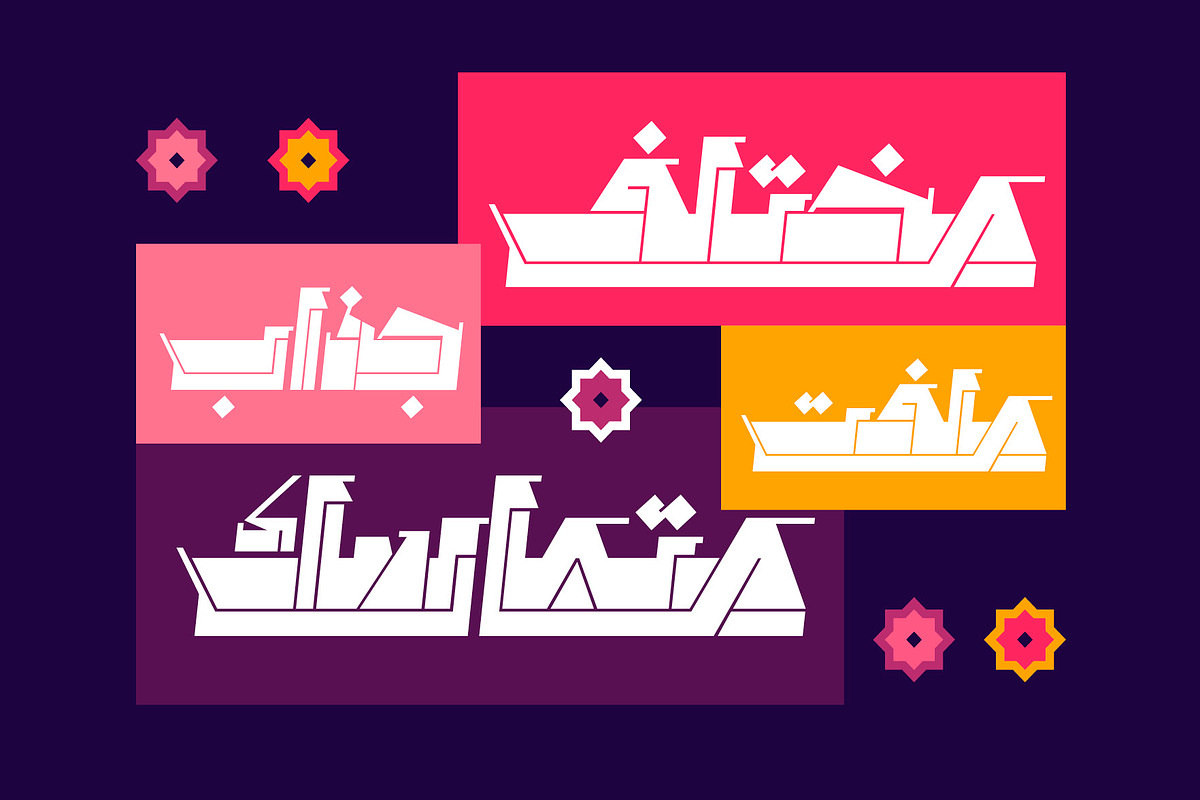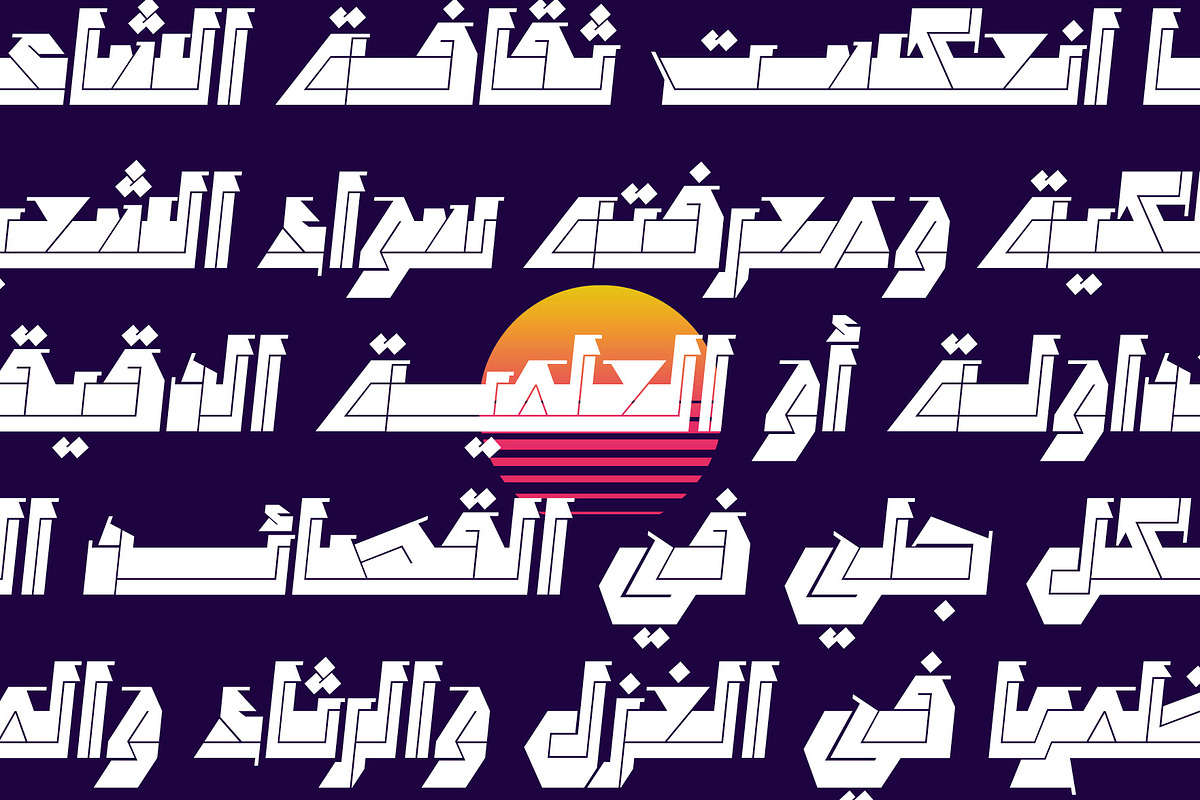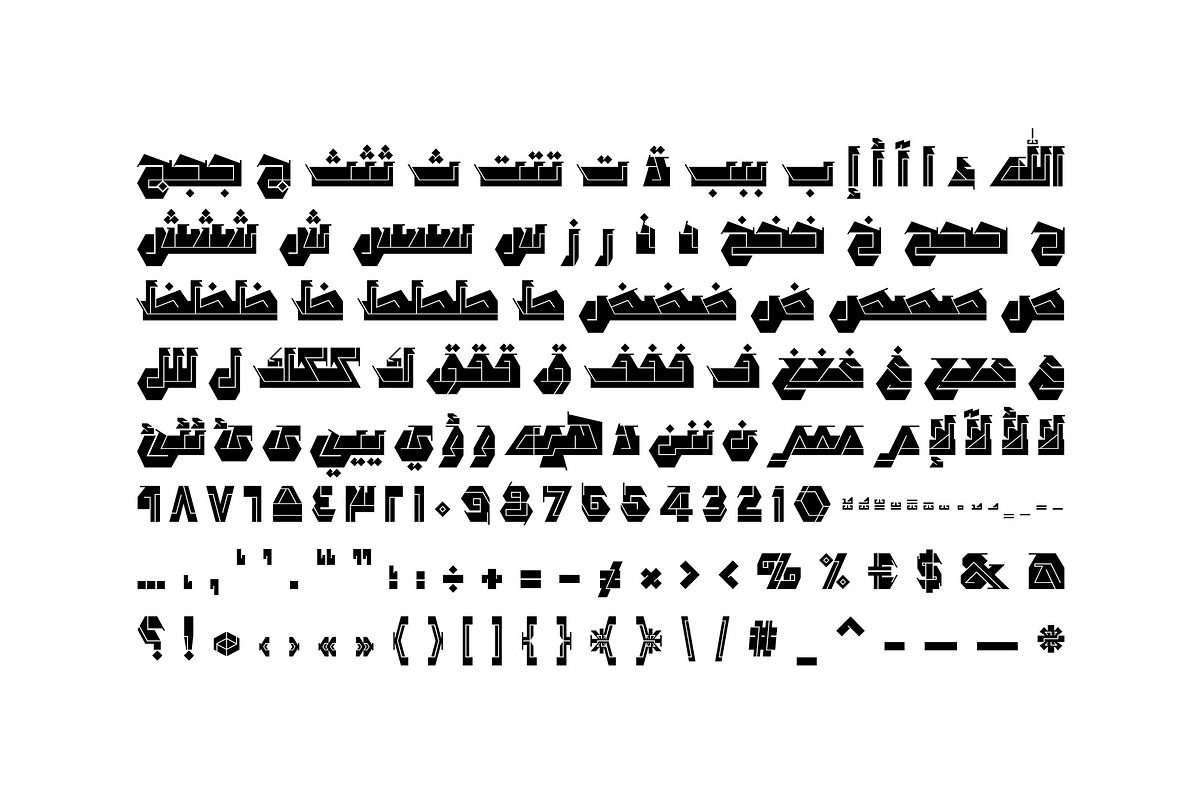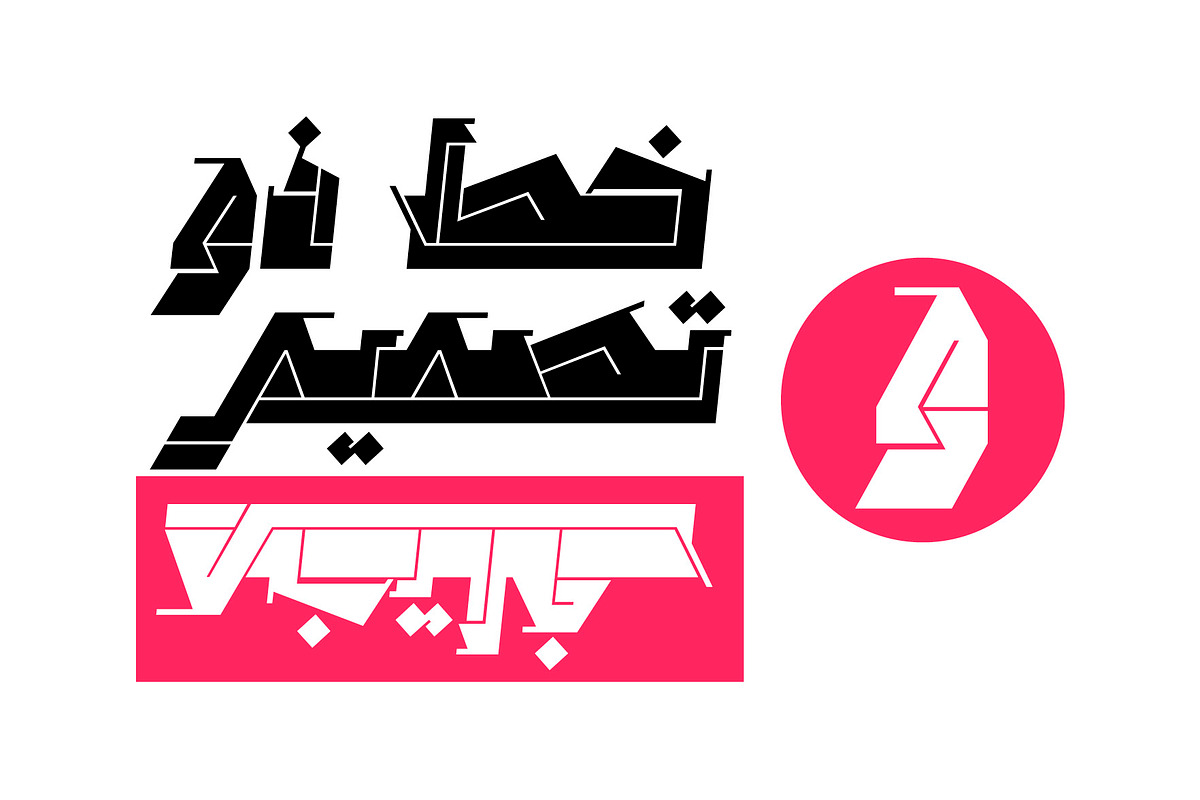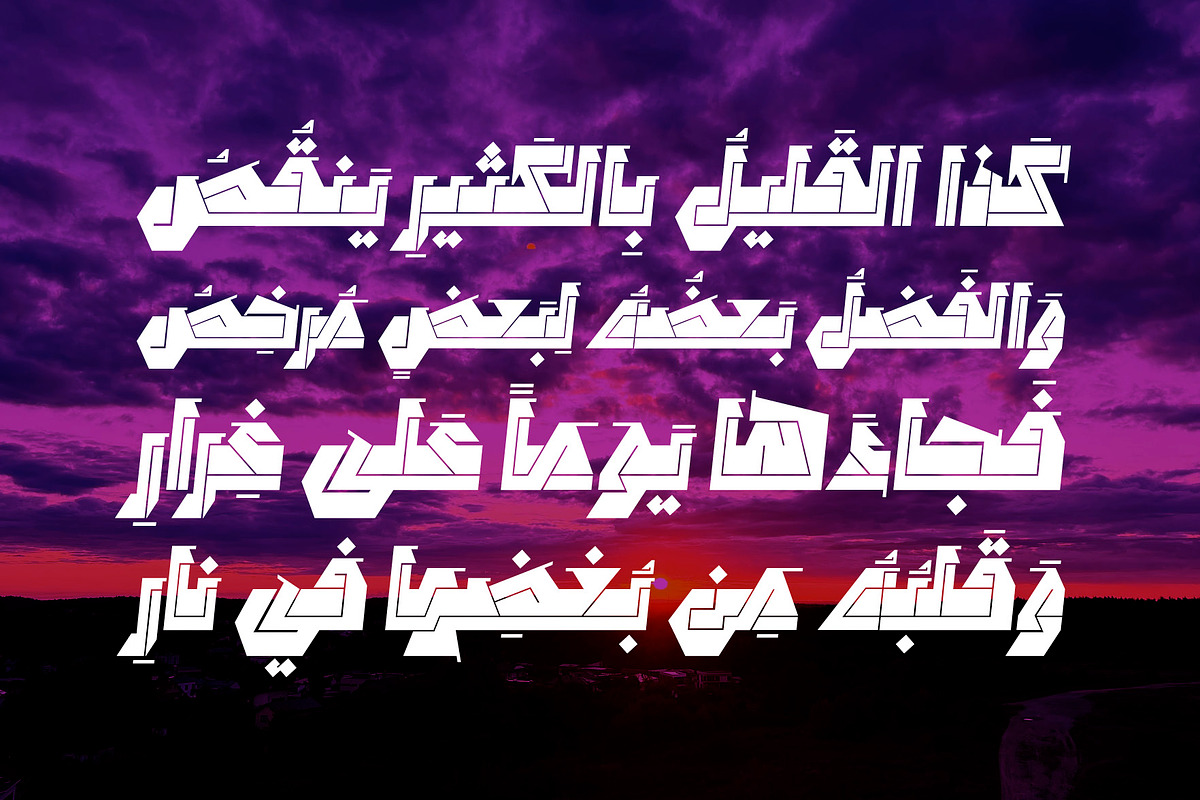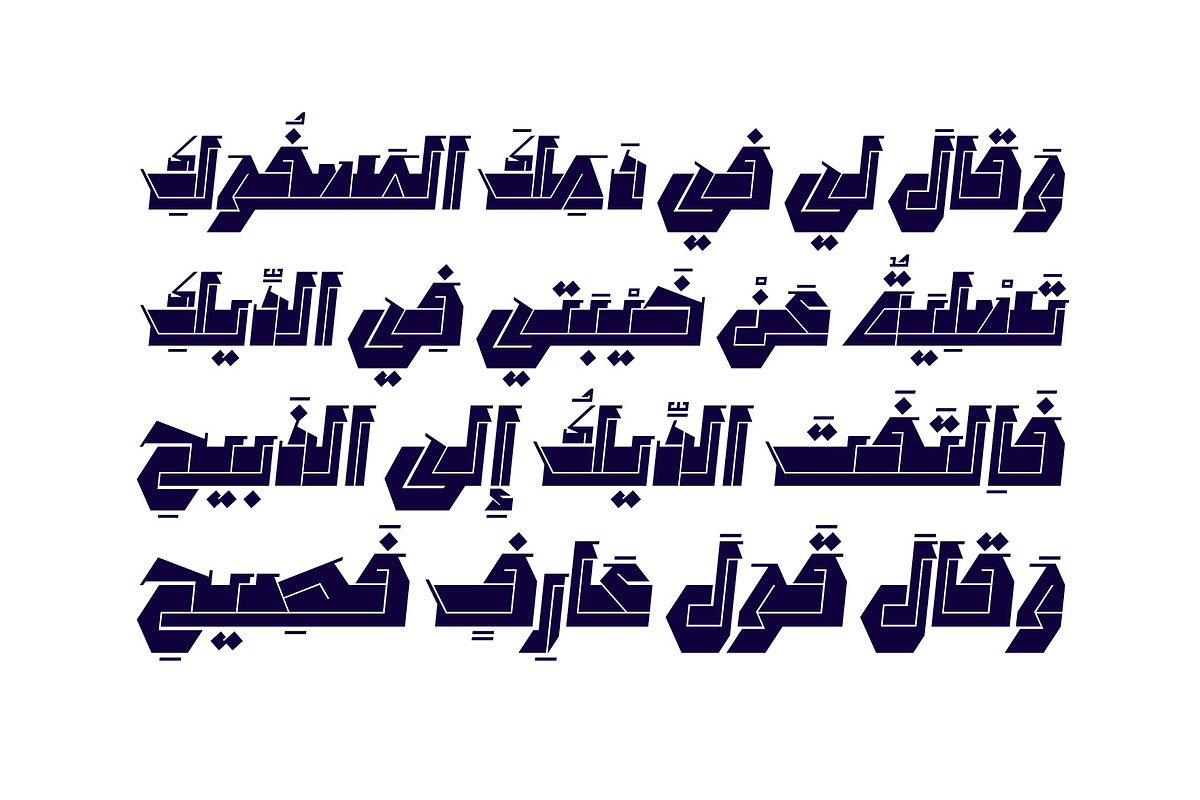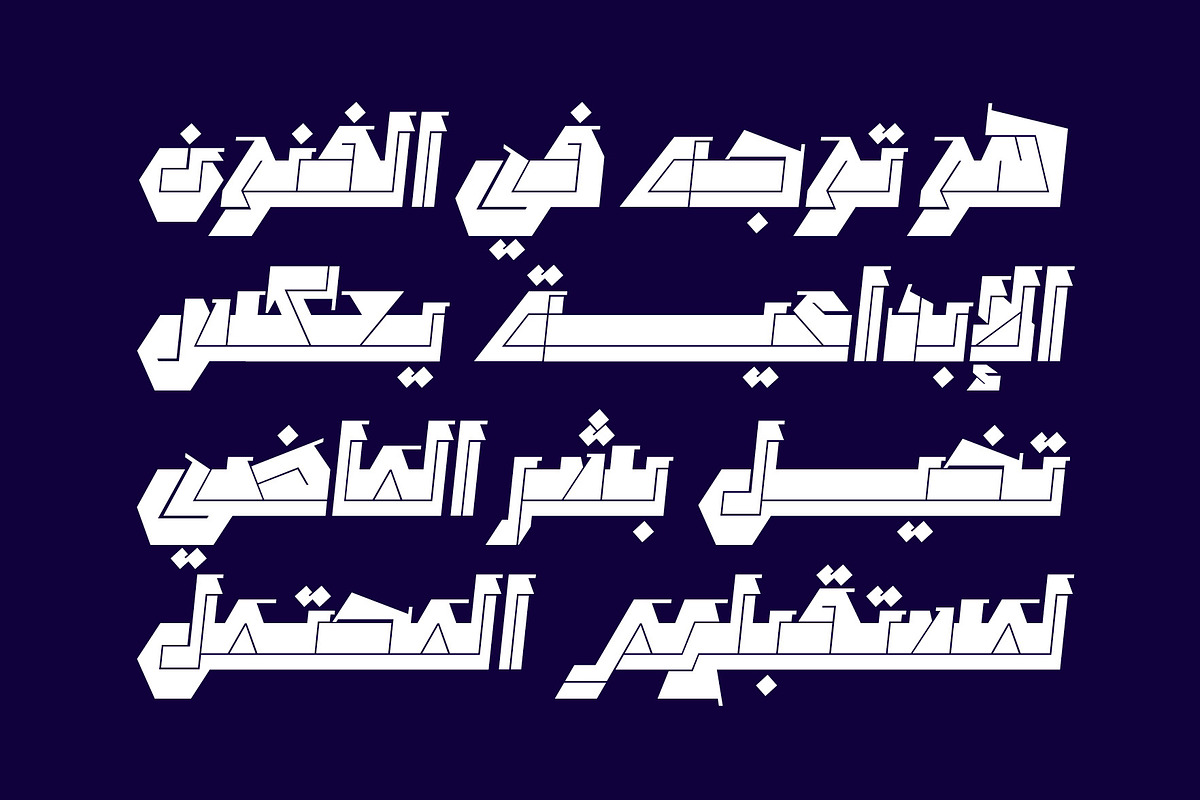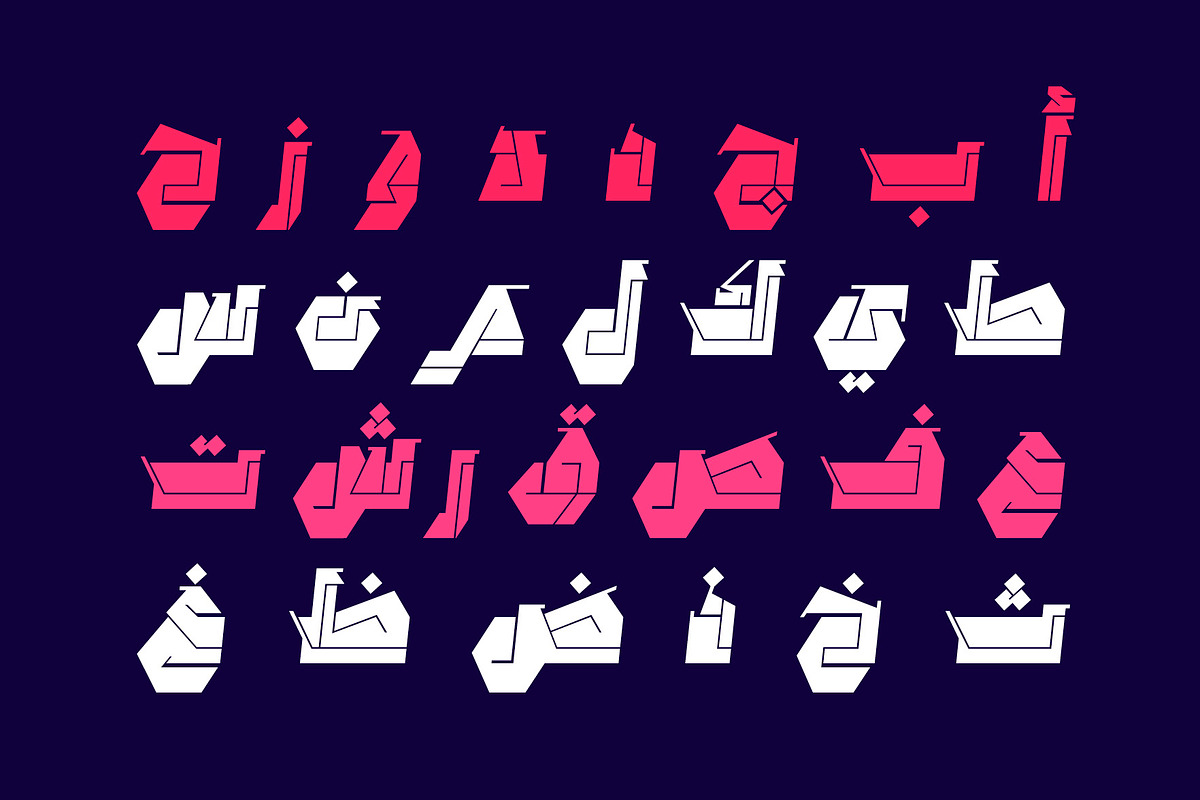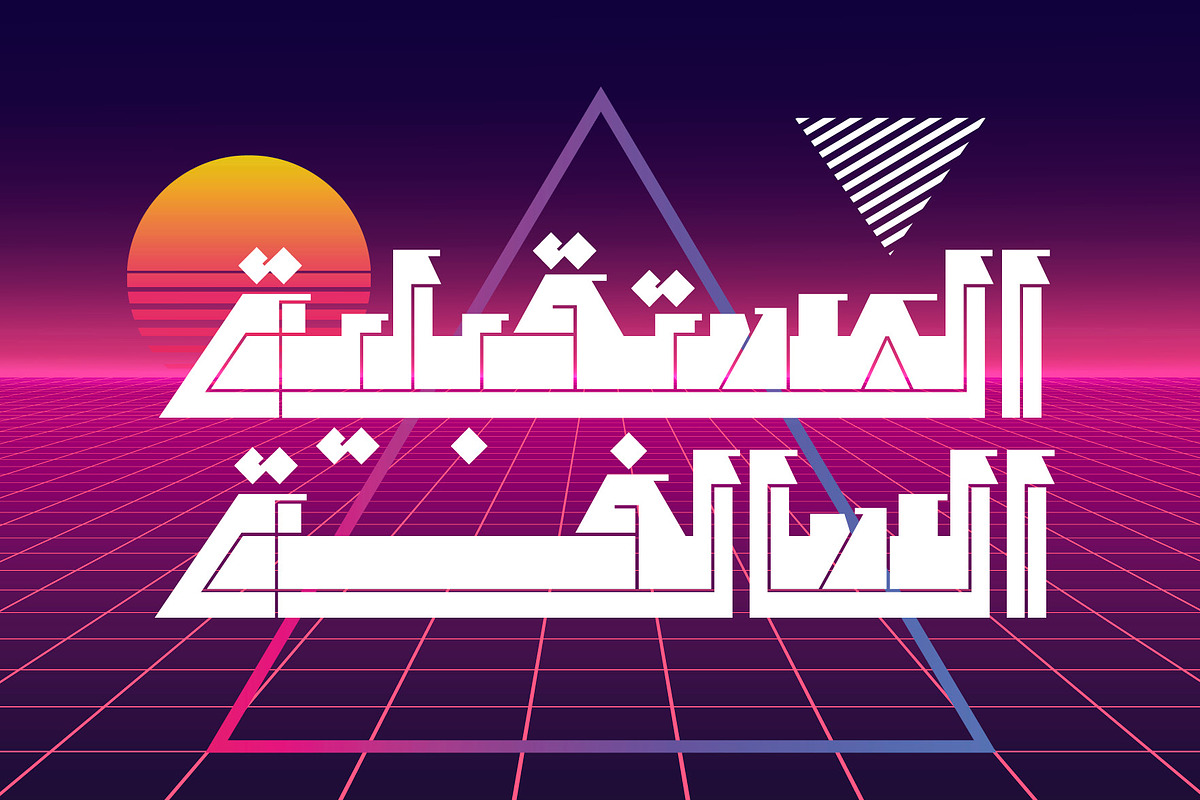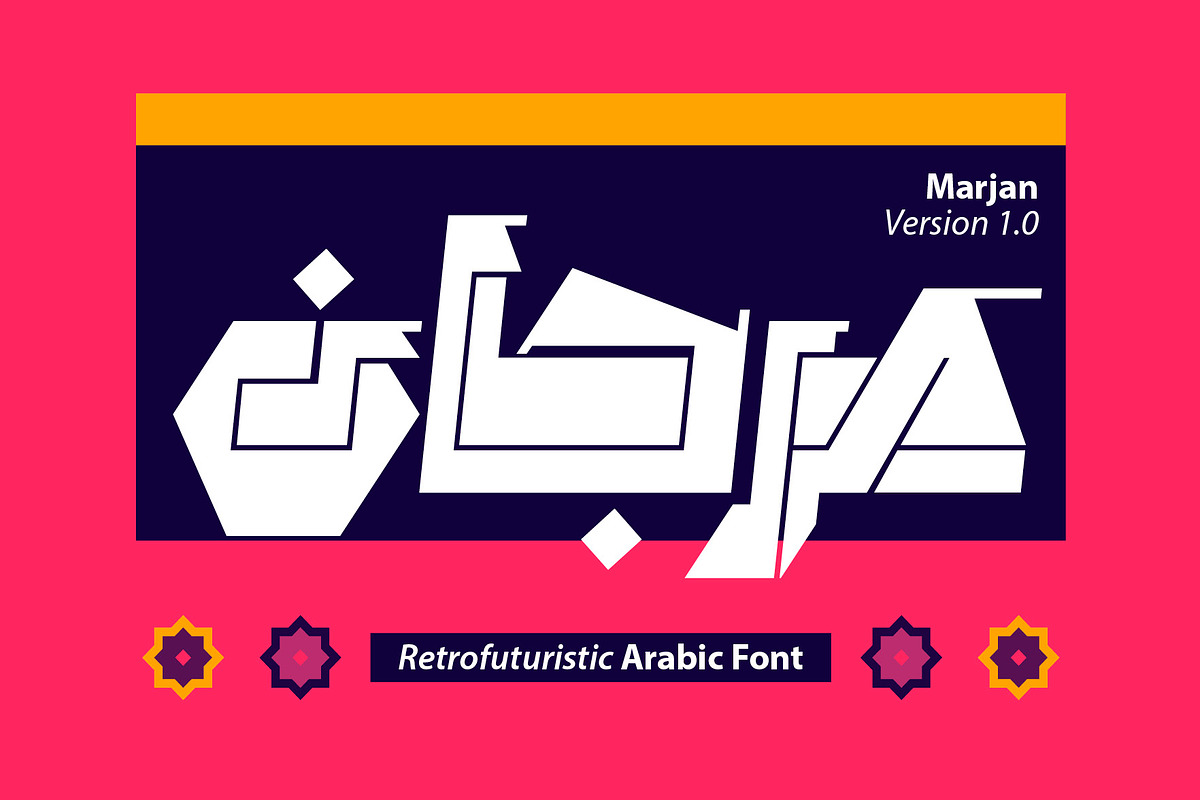
Marjan - Arabic Font
Marjan (the Arabic for 'Coral') is an Arabic display font characterized by its innovative geometric letterforms. The design draws inspiration from retrofuturism style, envisioning how an Arabic typeface might appear in a distant future as imagined by someone from the past. Marjan suits all creative projects including web, print, branding and advertising. It supports Windows ,macOS and mobile applications.